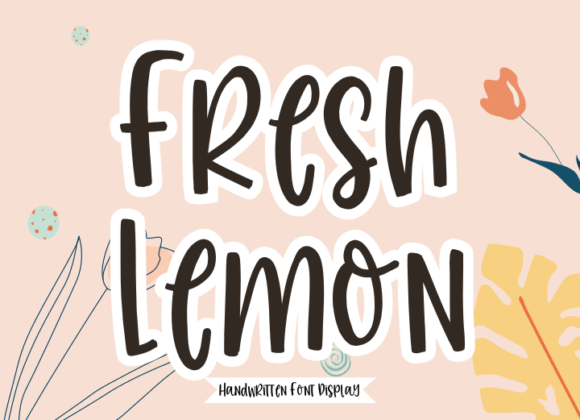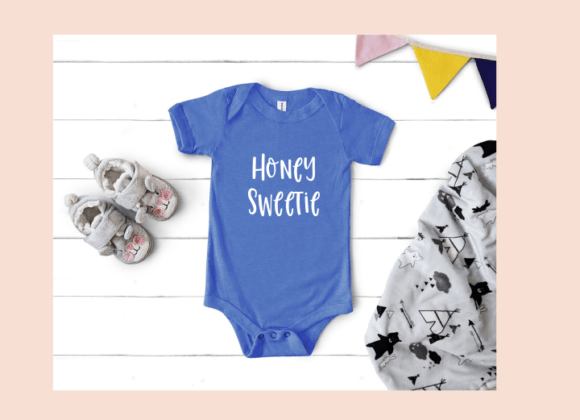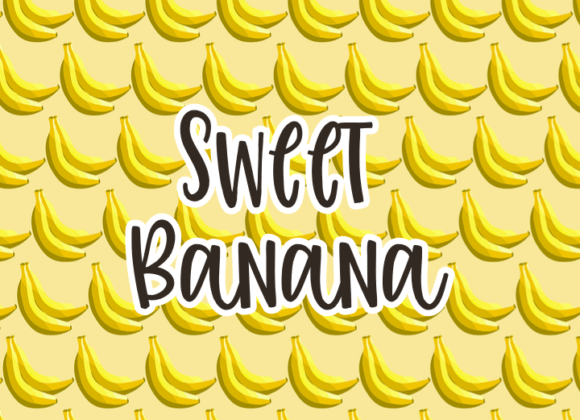
Fresh Lemon Font
About Fresh Lemon Font
Fresh Lemon is a fresh, modern, stylish, and flowing handwritten script font. It has beautiful and well-balanced characters and as a result, it matches a wide pool of designs. Add it to your most creative ideas and notice how it makes them come alive!